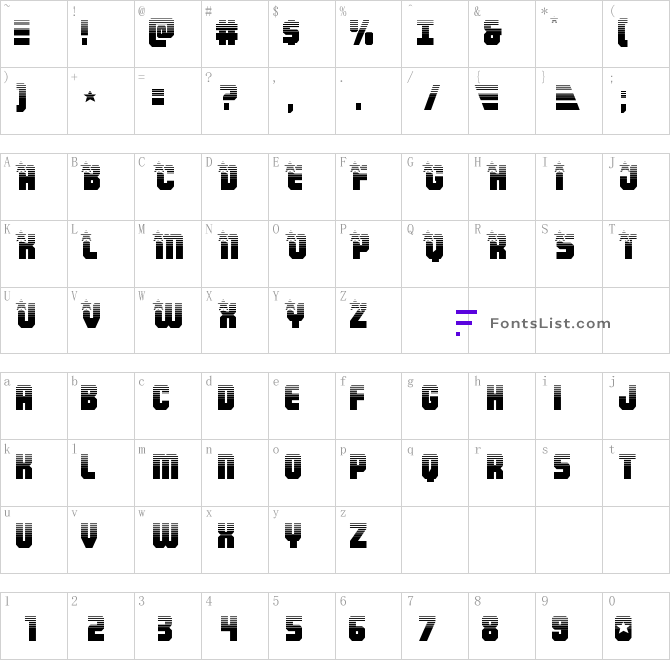
- Font Name:Army Rangers Half-Tone
Army-Rangers-Half-Tone-Regular.ttf is a very beautiful artistic font, Army-Rangers-Half-Tone-Regular.ttf is widely used in the design and printing of various books and pictures,Army-Rangers-Half-Tone-Regular.ttf has a strong visual impact,Army-Rangers-Half-Tone-Regular.ttf is a commonly used font in newspapers, magazines and books, and is used in posters, e-commerce Poster design, store design, logo design, font design and other fields.Army-Rangers-Half-Tone-Regular.